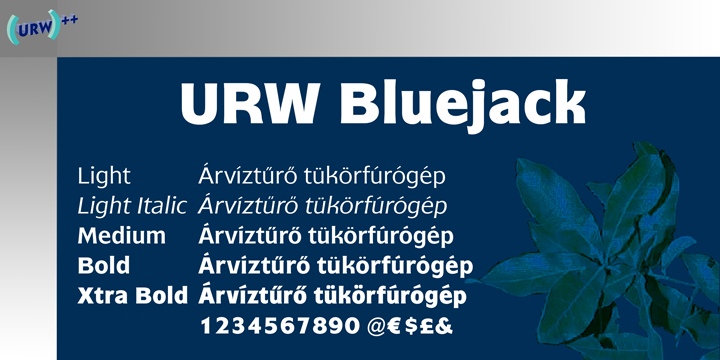
Bluejack Font
Bluejack Font is perfect for wireless technology branding, cybersecurity company logos, digital communication services, tech startup identities, modern telecommunications marketing, connected device packaging, smart technology interfaces, and innovative networking solutions. This dynamic typeface excels in applications where digital connectivity and wireless innovation are essential for creating trustworthy and cutting-edge brand experiences that celebrate modern communication technology.
What makes Bluejack Font truly exciting is its clever embodiment of wireless connectivity and digital communication technology that captures the seamless interaction of modern devices and the invisible networks that connect our digital world. The font features sleek, interconnected letterforms with technological details and signal-inspired curves that mirror the efficiency of wireless protocols and the sophistication of modern connectivity solutions. Its digital personality and networked character create an immediate sense of technological competence and communication reliability that resonates with audiences seeking dependable wireless solutions and innovative connectivity services. The typeface's tech-savvy appeal and wireless heritage make it perfect for brands wanting to convey innovation, connectivity, and connection to the evolving landscape of wireless communication technology.
The Bluejack Font family includes multiple weights from Light to Bold, complemented by condensed versions that enhance its technical versatility. The font offers comprehensive character sets with technology symbols, wireless indicators, and digital styling details that enhance its connectivity aesthetic. Additional graphic elements including signal waves, network patterns, connection points, and wireless motifs provide designers with complete branding tools rooted in wireless technology and digital communication traditions.